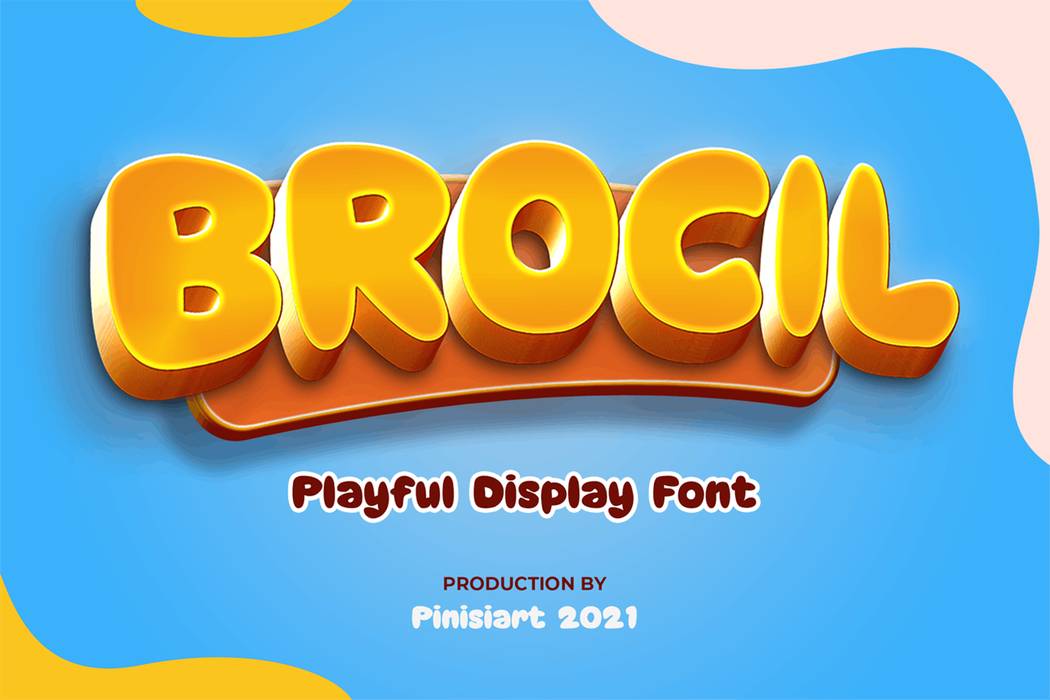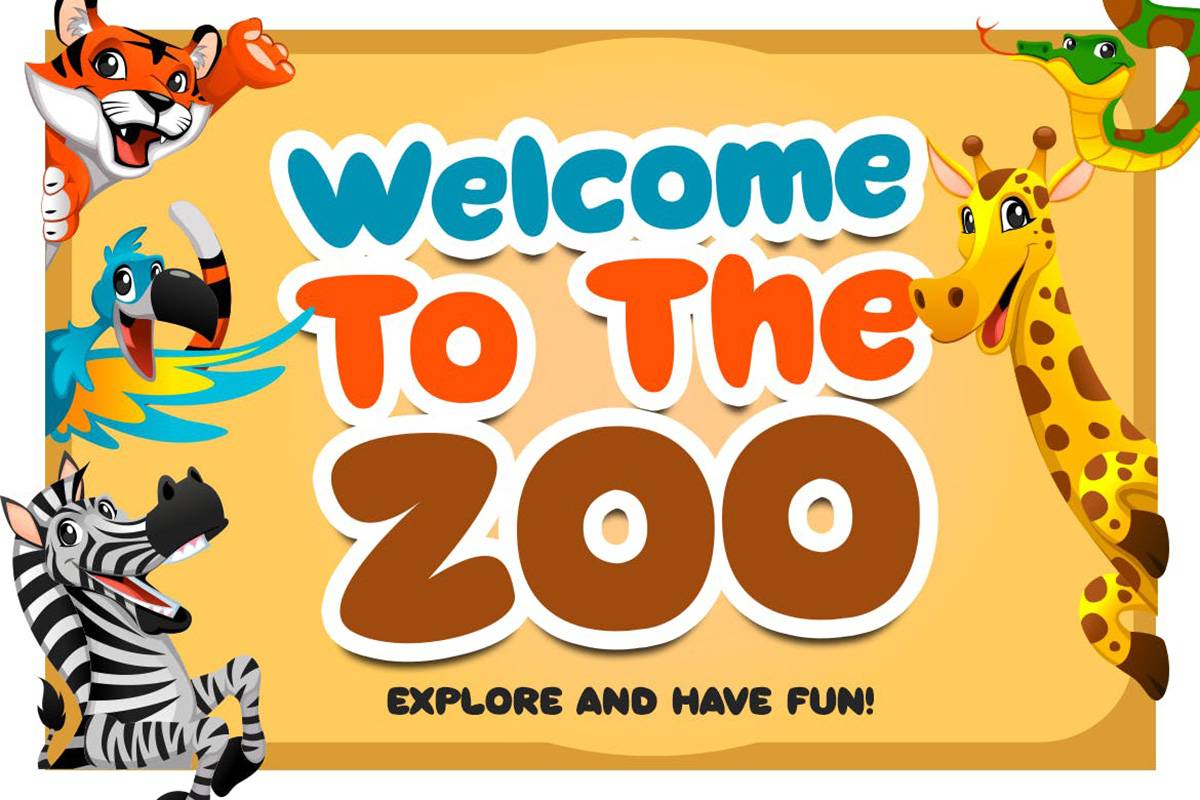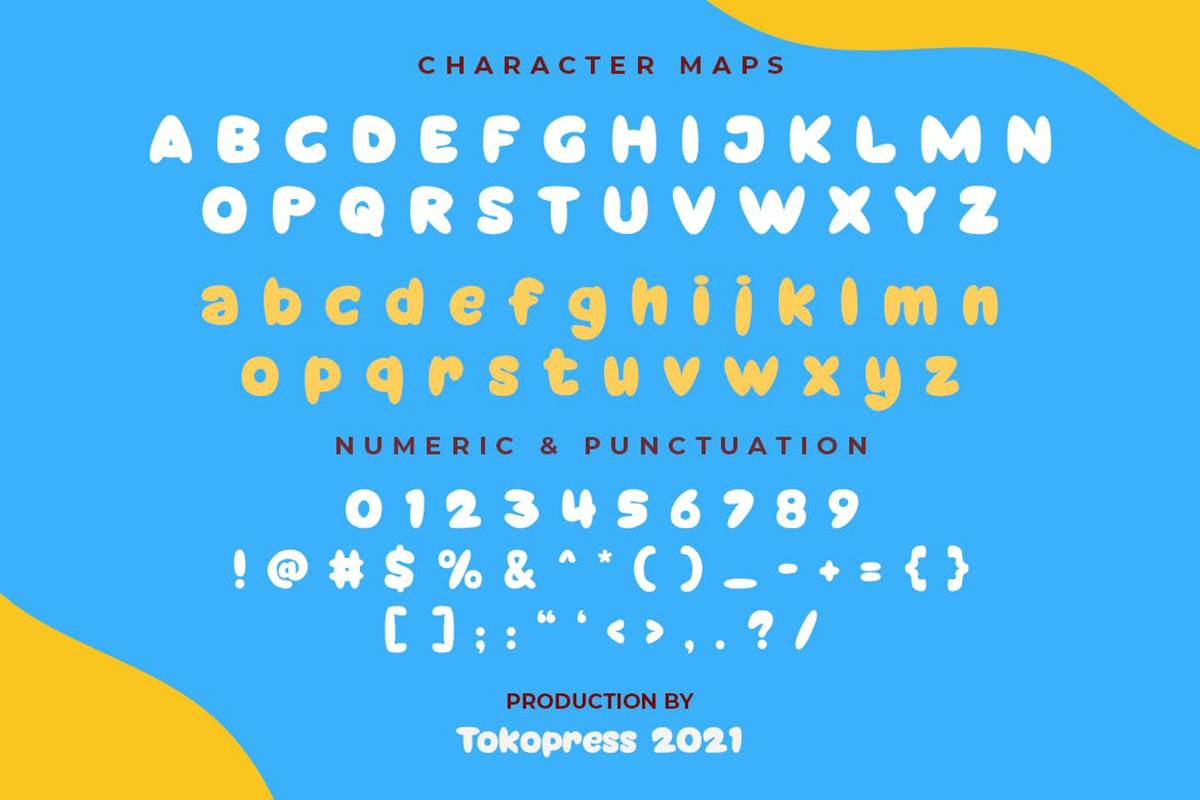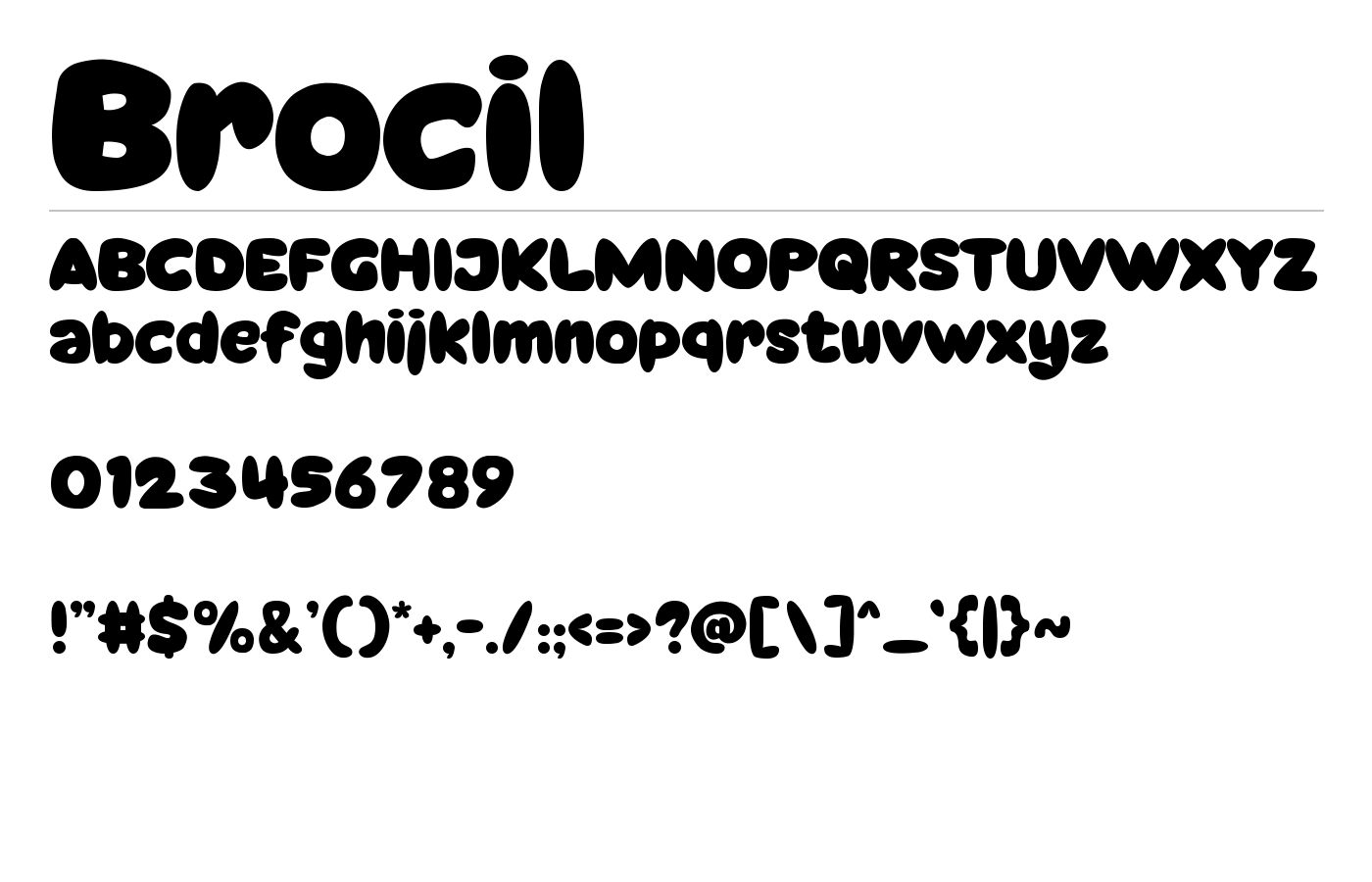
Brocil is a playful and bold sans serif font with a rounded, slightly chunky appearance that brings a friendly and approachable vibe. Its smooth, uniform strokes and high x-height make it highly legible, perfect for casual branding, children’s products, or fun headlines. This font works well where a warm, informal tone is needed, inviting engagement and a sense of cheerfulness.
Brocil Font